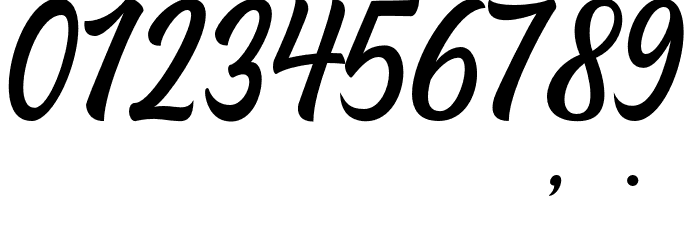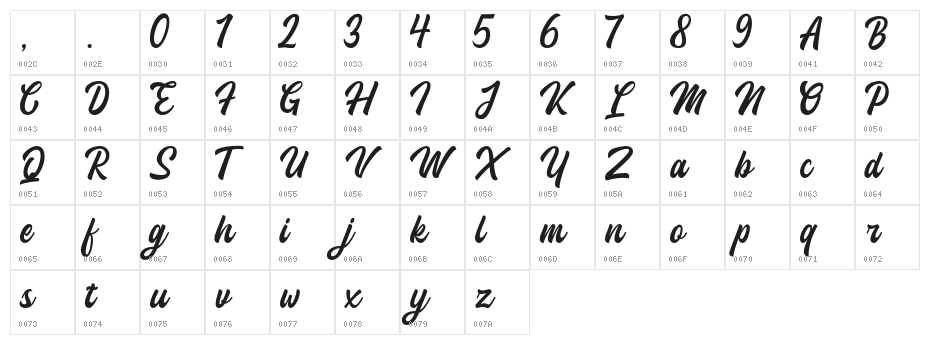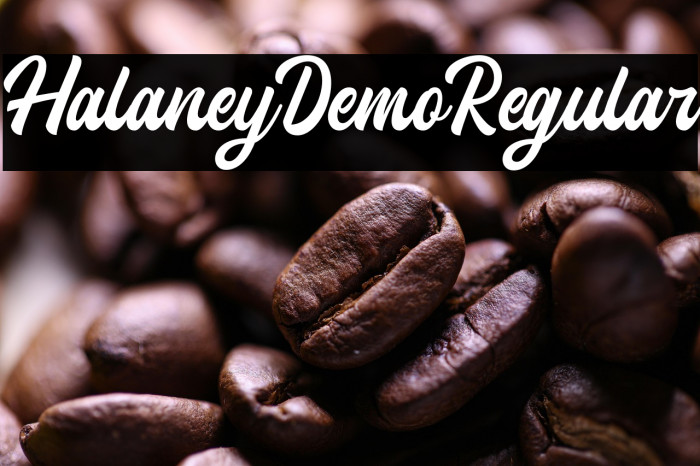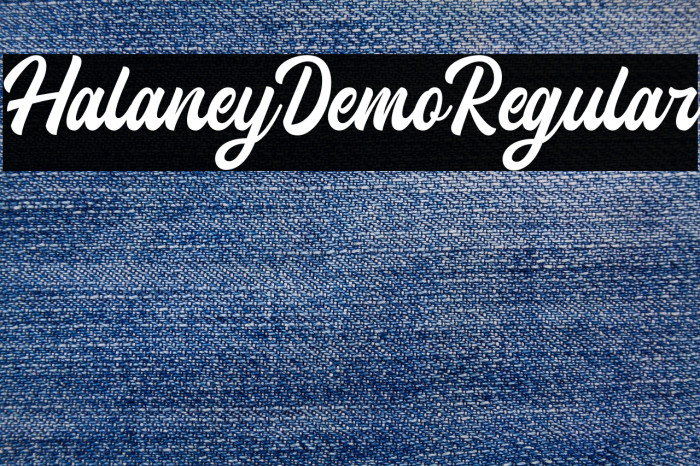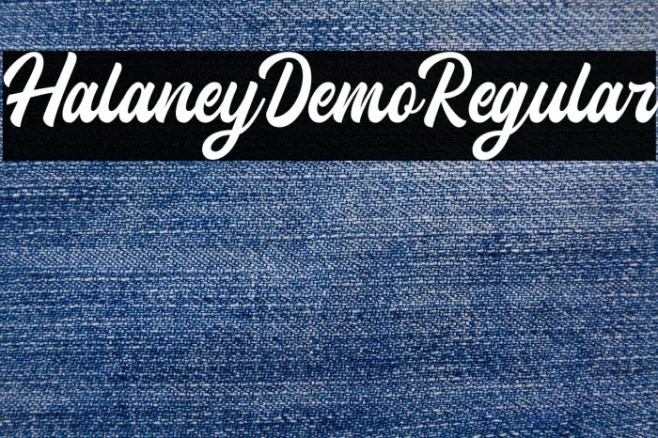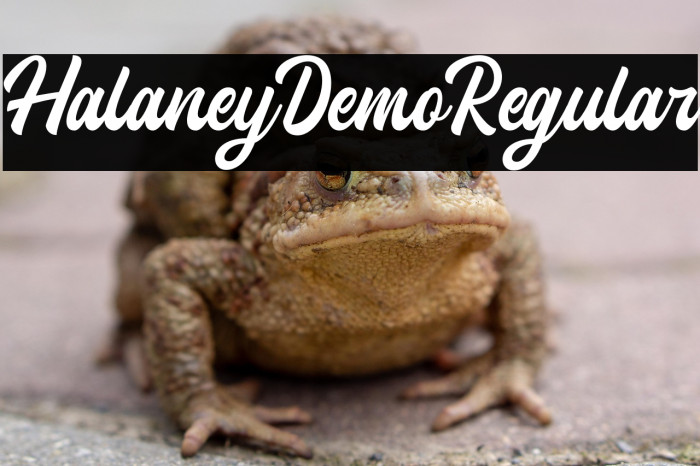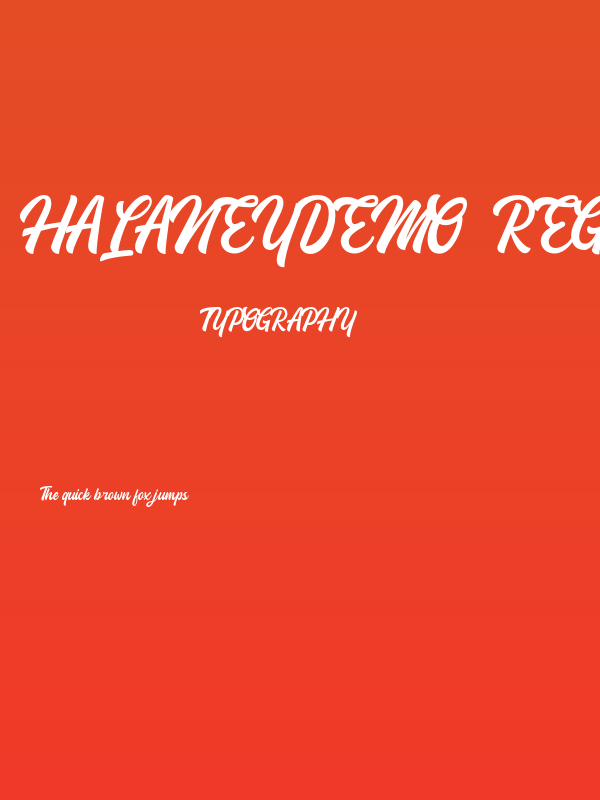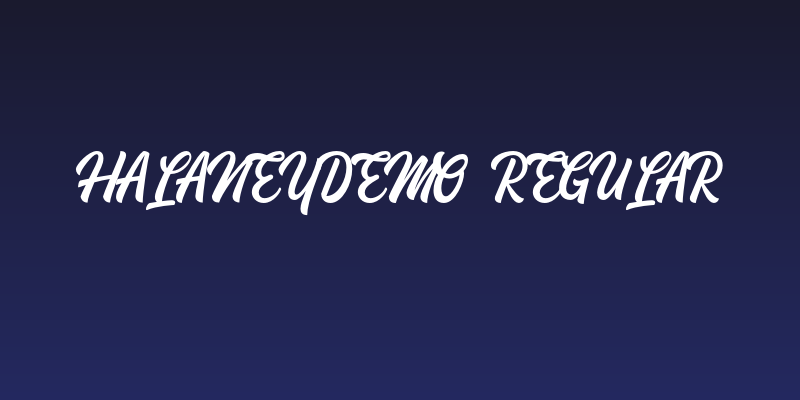
HalaneyDemo-Regular Font
HalaneyDemo-Regular Description
This font features a bold and flowing script style, characterized by its elegant and smooth curves. The uppercase letters are slightly larger and more pronounced, while the lowercase letters maintain a consistent flow, enhancing readability. The numbers are well-proportioned, matching the overall style of the alphabet. The font's design is reminiscent of classic calligraphy, with a modern twist that makes it suitable for a variety of applications. The strokes are thick and consistent, providing a strong visual impact.